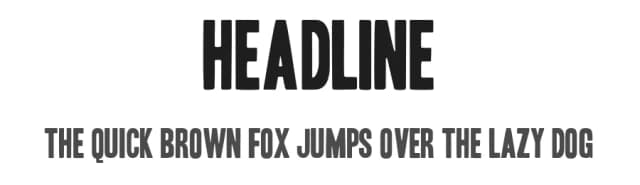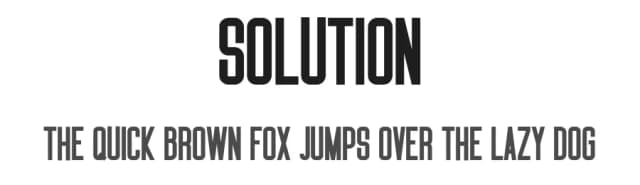
About Elanor Font
Elanor Specifications
| Designer | MaulanaCreative |
Elanor Font is a versatile sans-serif font that works for both headings and body text. Pair it with a contrasting serif or slab serif font to add visual interest and a clear distinction between titles and body copy.
Elanor Font